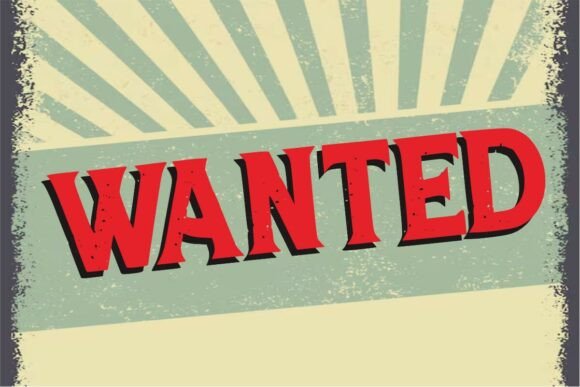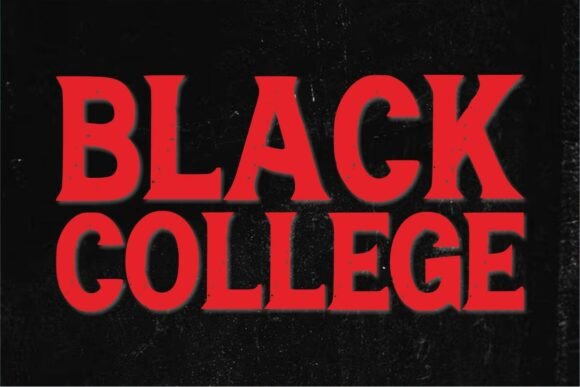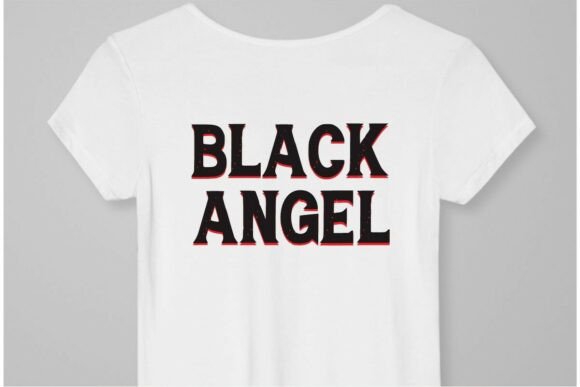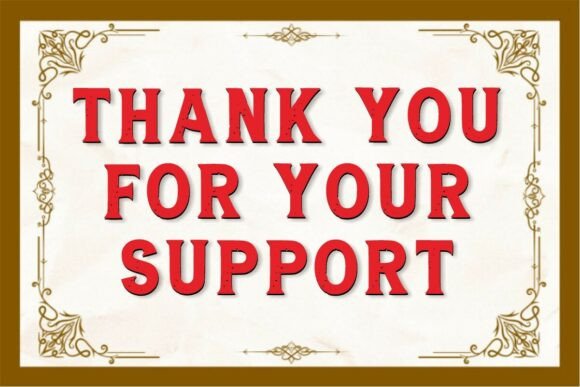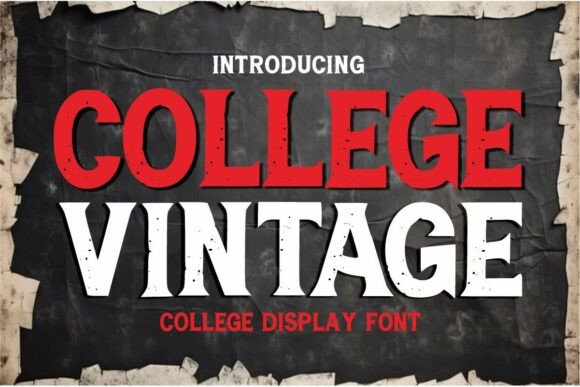
Introducing College Vintage Font: The Bold Grunge Display Font
Are you tired of using the same old fonts for your designs? Look no further than College Vintage Font, a bold grunge display font that’s sure to make your work stand out. With its rough, textured finish and worn letterforms, this font is perfect for creating vintage-inspired visuals that demand attention.
What is College Vintage Font?
College Vintage Font is a unique and eye-catching font that’s designed to add a touch of grunge to your designs. Its bold, rough texture gives it a worn and tough feel that’s perfect for creating posters, album covers, retro branding, and other vintage-inspired visuals. Whether you’re a designer, craftor, or DIY enthusiast, this font is sure to become a staple in your collection.
Key Features of College Vintage Font
- Bold and Attention-Grabbing: College Vintage Font is designed to stand out and grab attention. Its bold letterforms and rough texture make it perfect for creating eye-catching headlines and titles.
- Rough, Textured Finish: The font’s rough, textured finish gives it a worn and tough feel that’s perfect for creating vintage-inspired visuals.
- Worn Letterforms: The font’s worn letterforms add to its vintage feel and make it perfect for creating retro-style designs.
- Versatile: College Vintage Font can be used for a wide range of design projects, from posters and album covers to retro branding and more.
Uses for College Vintage Font
College Vintage Font is a versatile font that can be used for a wide range of design projects. Here are some ideas to get you started:
- Posters: Use College Vintage Font to create eye-catching posters for concerts, events, or promotions.
- Album Covers: Add a touch of grunge to your music designs with College Vintage Font.
- Retro Branding: Use the font to create vintage-inspired branding for your business or product.
- DIY Crafts: College Vintage Font is perfect for crafters who want to add a personal touch to their projects.
Why Choose College Vintage Font?
With so many fonts to choose from, why should you choose College Vintage Font? Here are just a few reasons:
- Unique: College Vintage Font is a one-of-a-kind font that’s sure to make your designs stand out.
- High-Quality: The font is designed with high-quality and clarity in mind, making it perfect for use in a wide range of design projects.
Tips for Using College Vintage Font
Here are a few tips for getting the most out of College Vintage Font:
- Use it sparingly: Because of its bold and attention-grabbing nature, it’s best to use College Vintage Font sparingly to avoid overwhelming your design.
- Experiment with colors: The font looks great in a wide range of colors, so don’t be afraid to experiment and find the perfect color for your design.
- Pair it with other fonts: College Vintage Font pairs well with a wide range of other fonts, so feel free to get creative and find the perfect combination for your design.
| Font Name | College Vintage Font |
| Author | fana studio |
College Vintage Font is a bold grunge display font that’s sure to add a touch of vintage charm to your designs. With its rough, textured finish and worn letterforms, this font is perfect for creating eye-catching posters, album covers, retro branding, and more. Whether you’re a designer, craftor, or DIY enthusiast, College Vintage Font is a must-have font that’s sure to become a staple in your collection.